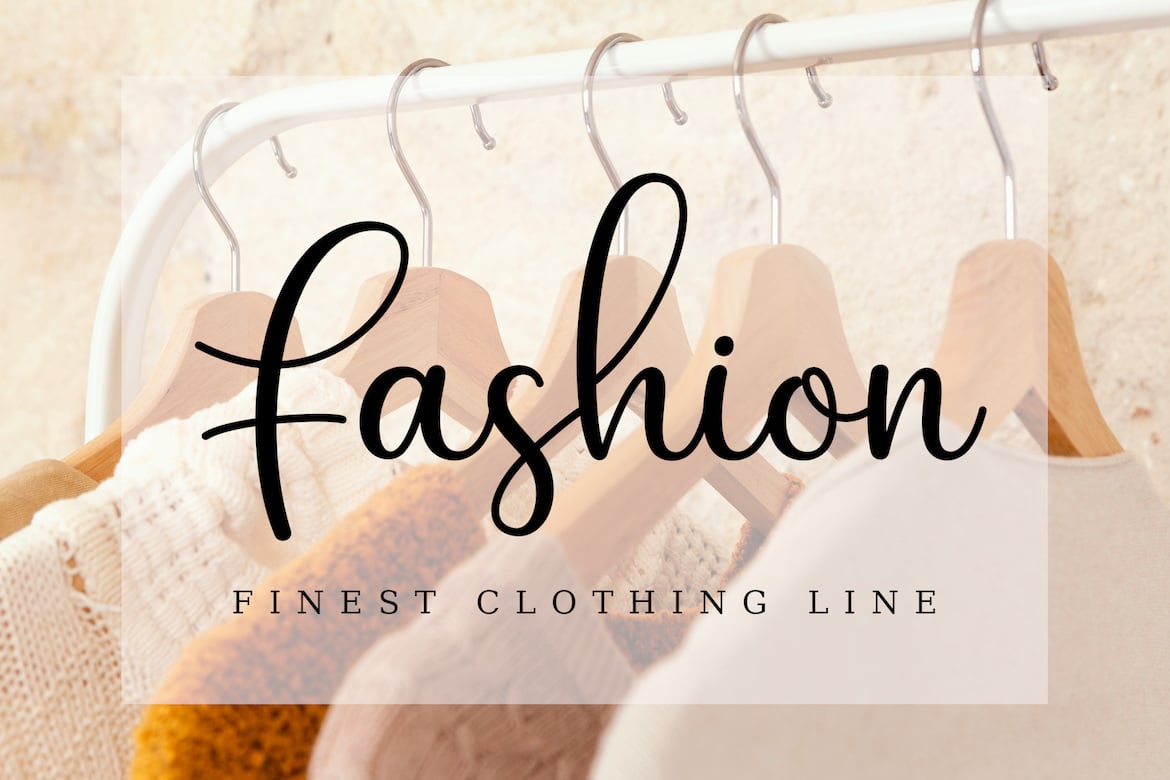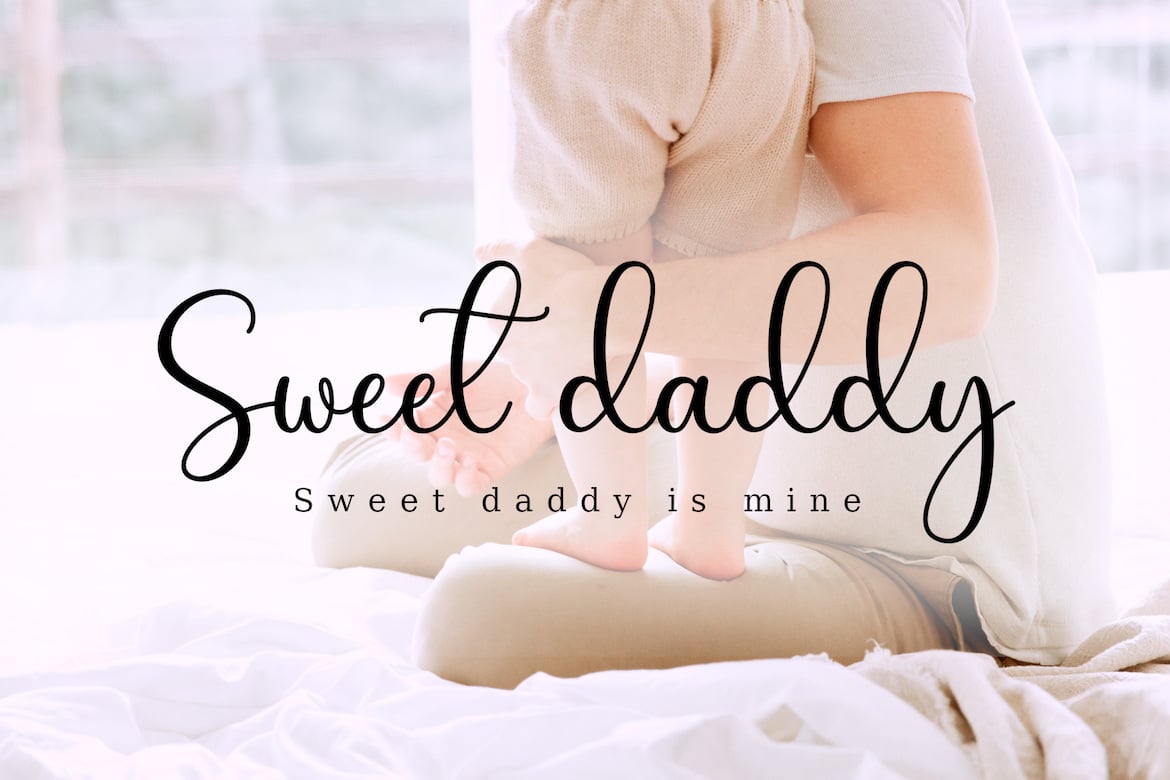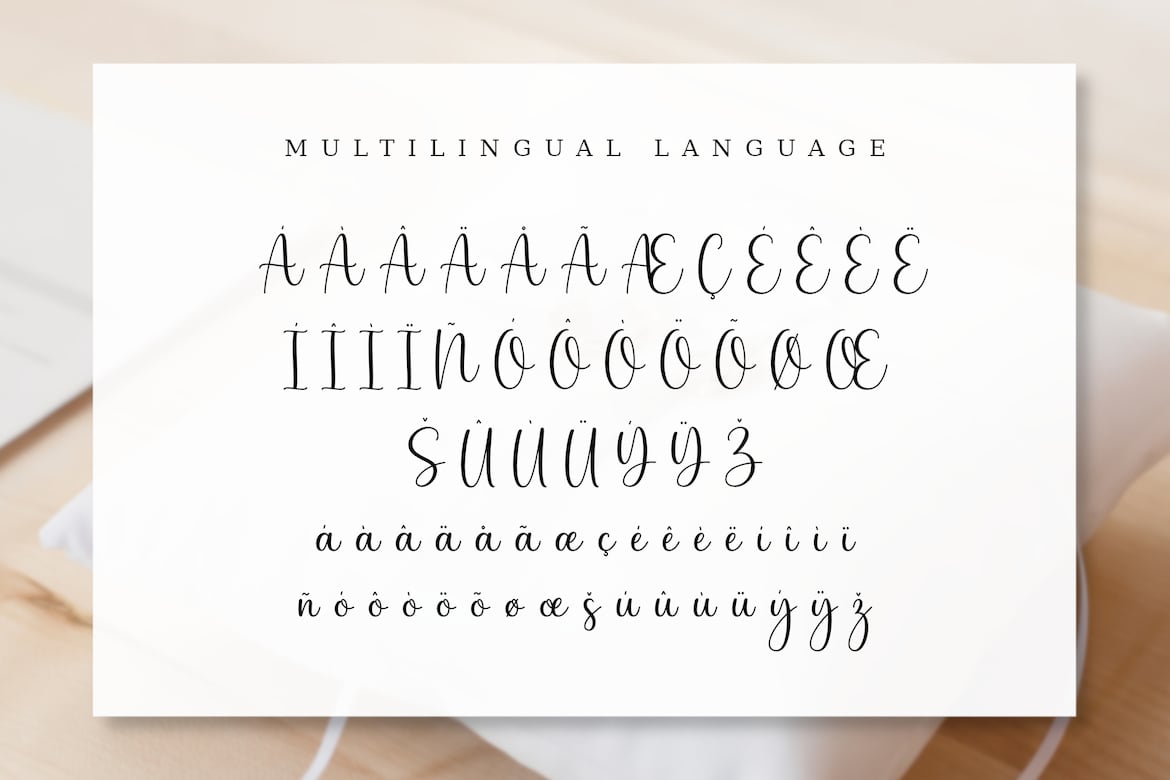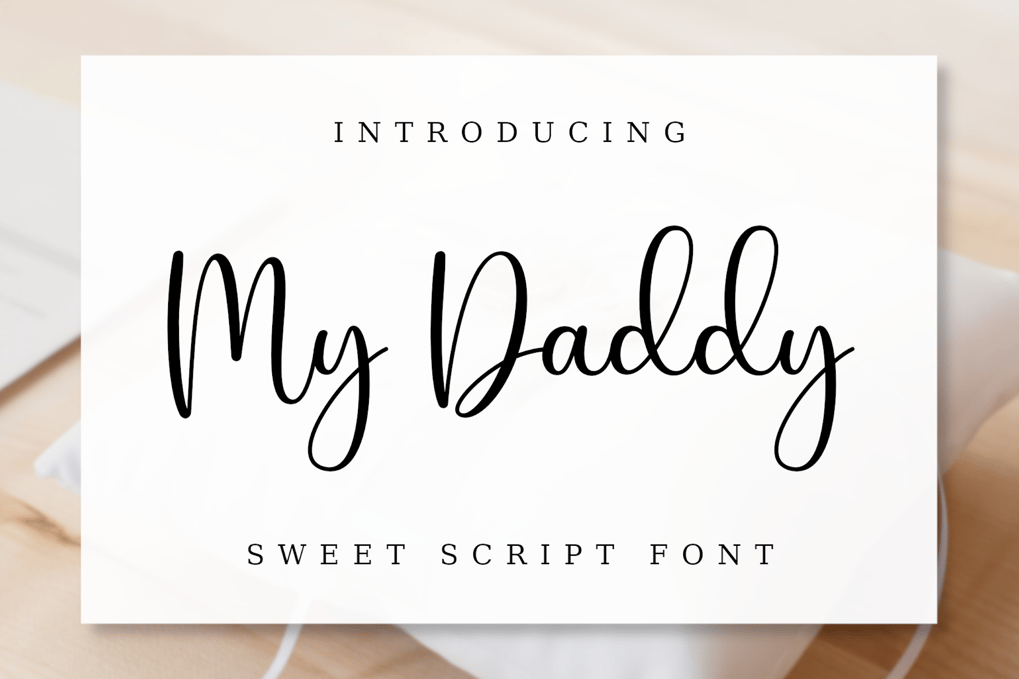
My Daddy – Crafted Script Font
My Daddy is a beautifully crafted script font featuring a simple yet elegant design. Perfect for a wide range of creative projects, this font adds a touch of sophistication to posters, logotypes, mug designs, crafts, and more. Elevate your designs with the timeless elegance of My Daddy.